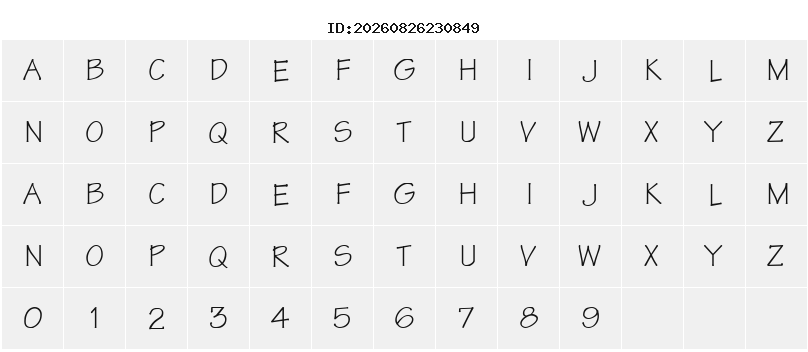
.VnTeknicalH Preview
• Font Name: .VnTeknicalH
• Full Font Name: .VnTeknicalH
About .VnTeknicalH.ttf
.VnTeknicalH.ttf is a modern, elegant sans-serif font designed for ultimate readability and visual harmony. Perfect for branding, headlines, web design, and print materials.